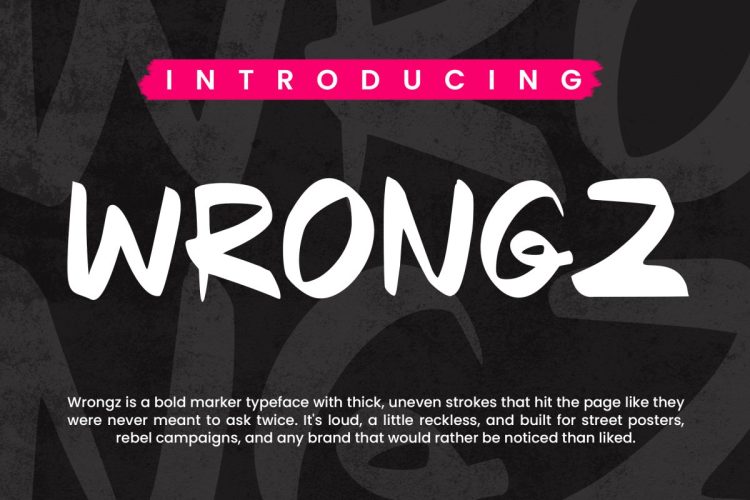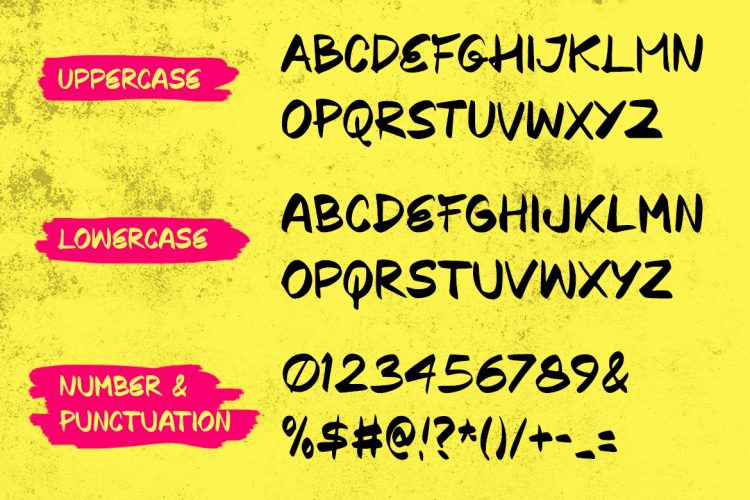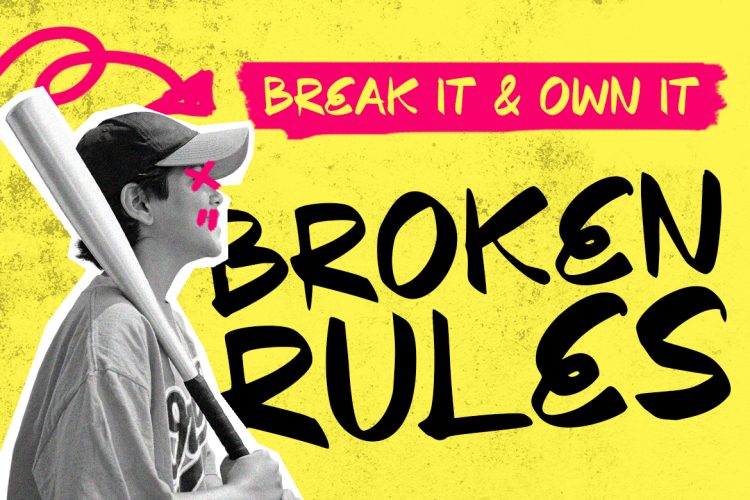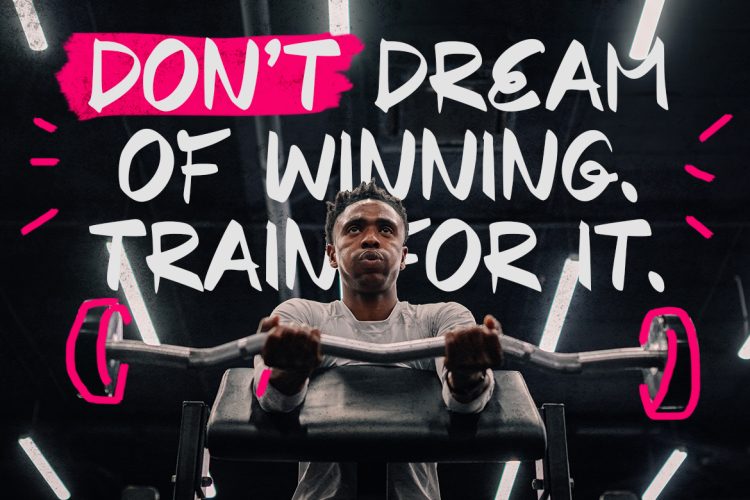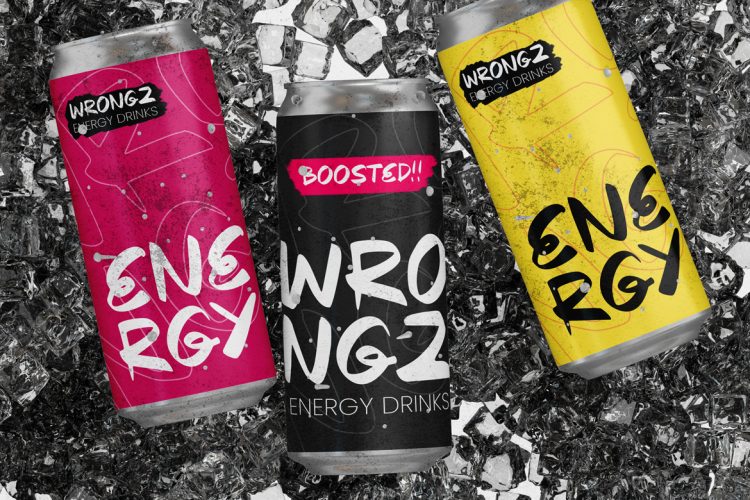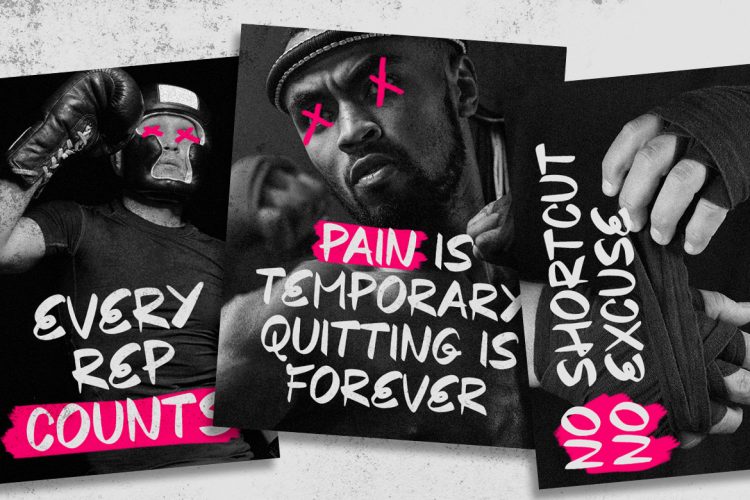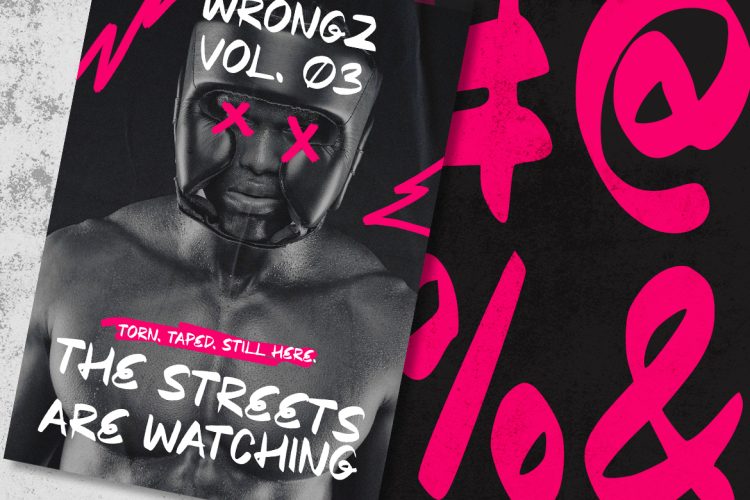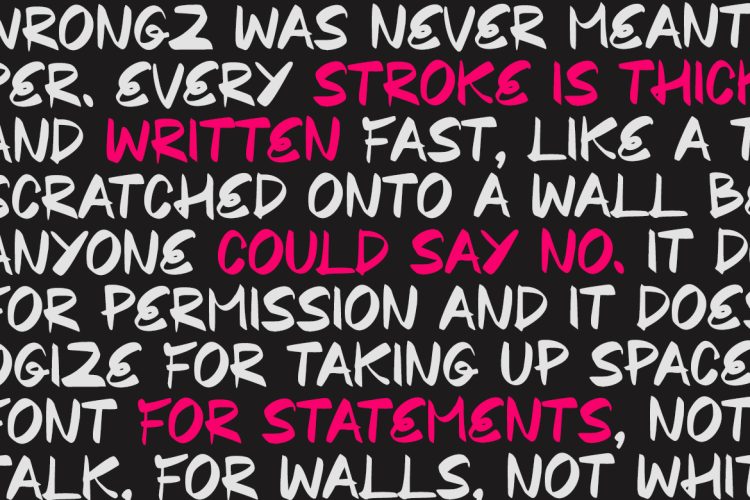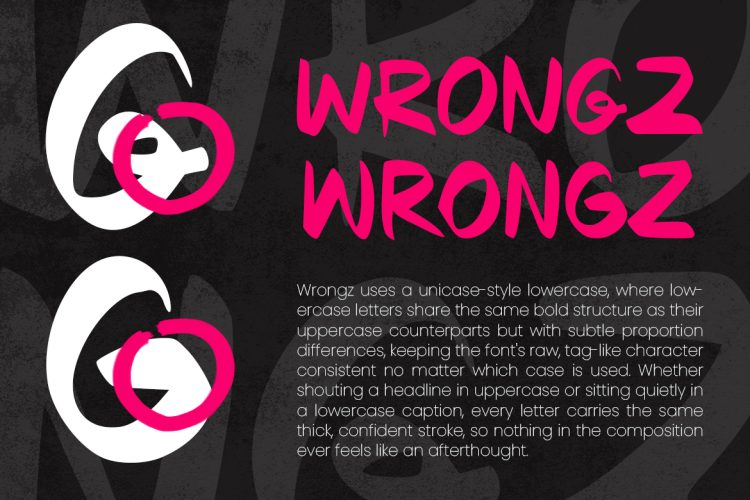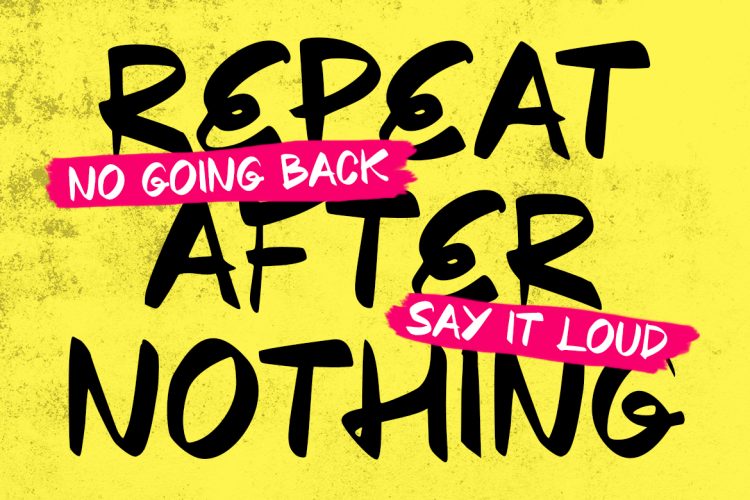
WRONGZ โ Raw Rebel Handwritten Font
Instagram Font Wrongz brings a raw, rebellious attitude to typography with its rough handwritten strokes, uneven shapes, and expressive marker-like texture. Right away, it feels bold, fearless, and unapologetic. Meanwhile, the irregular letterforms create an authentic DIY aesthetic that feels more human and energetic than polished typography. Because of this, Wrongz is perfect for designs that need a strong voice, edgy attitude, and instant visual impact. In addition, its bold forms stay readable while adding plenty of personality to headlines, statements, and short messages. As a result, every word can feel louder, tougher, and more memorable.
Built for Bold Creative Projects
Wrongz works beautifully for streetwear graphics, fitness branding, posters, album artwork, social media campaigns, stickers, merchandise, packaging, and youth-focused visual identities. For example, its raw texture fits gym culture, underground music, skate graphics, urban brands, motivational artwork, and rebellious campaigns. Furthermore, the font pairs naturally with photography, distressed textures, bold colors, and gritty layouts. So, designers can easily create visuals that feel authentic rather than overly polished.
Instagram Font Wrongz Who Is It For?
Perfect for graphic designers, streetwear brands, musicians, fitness creators, content creators, packaging designers, poster artists, and anyone who wants typography with attitude.
Make Your Message Hit Harder